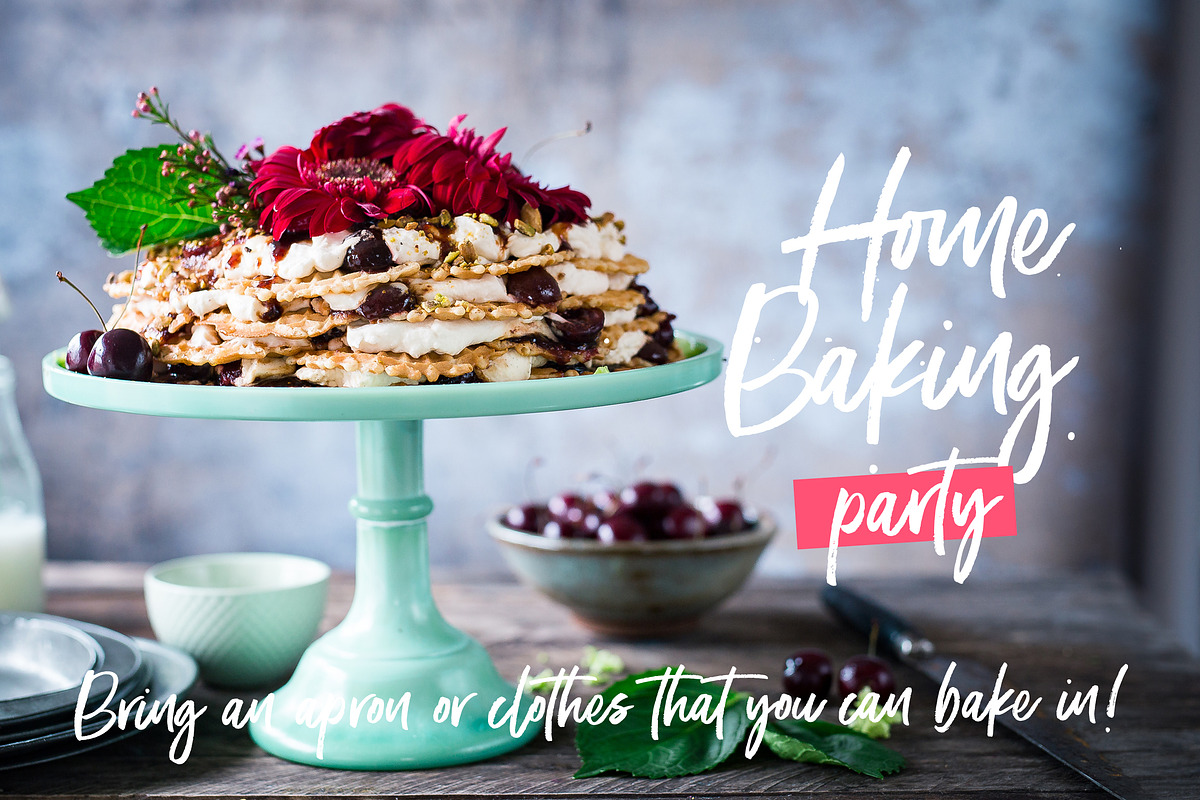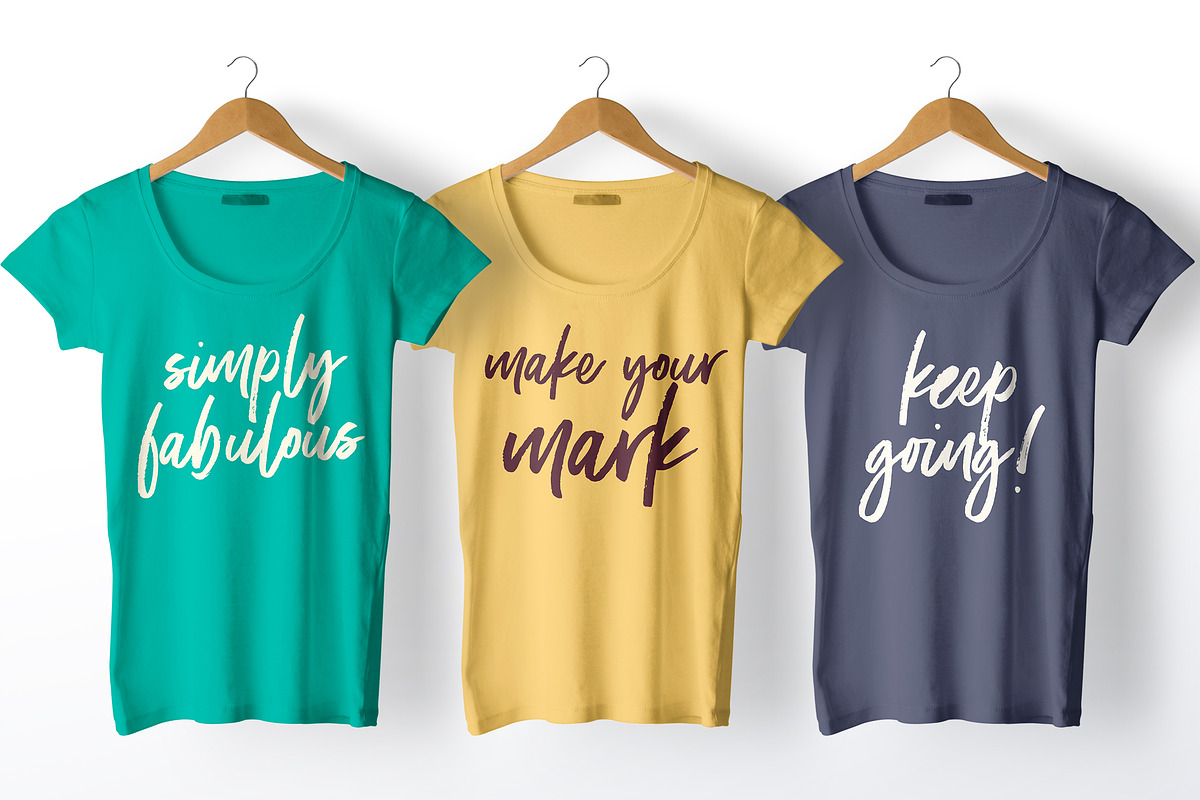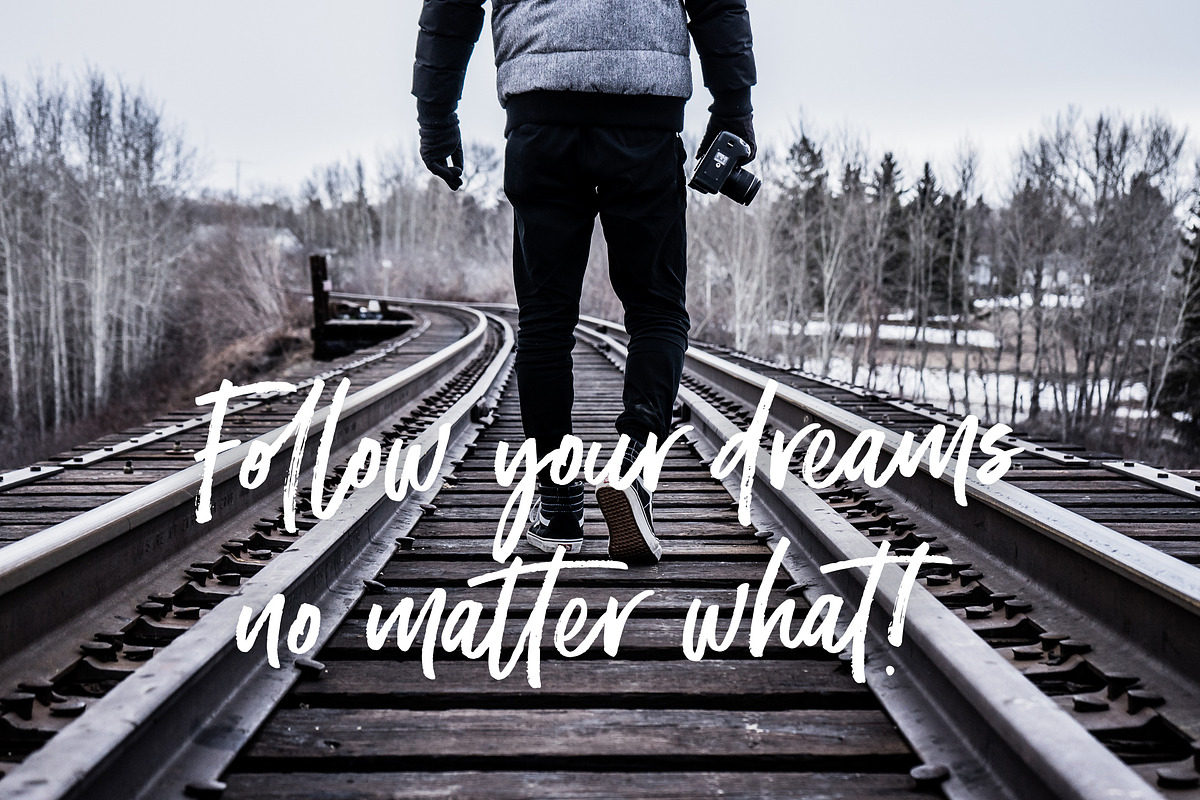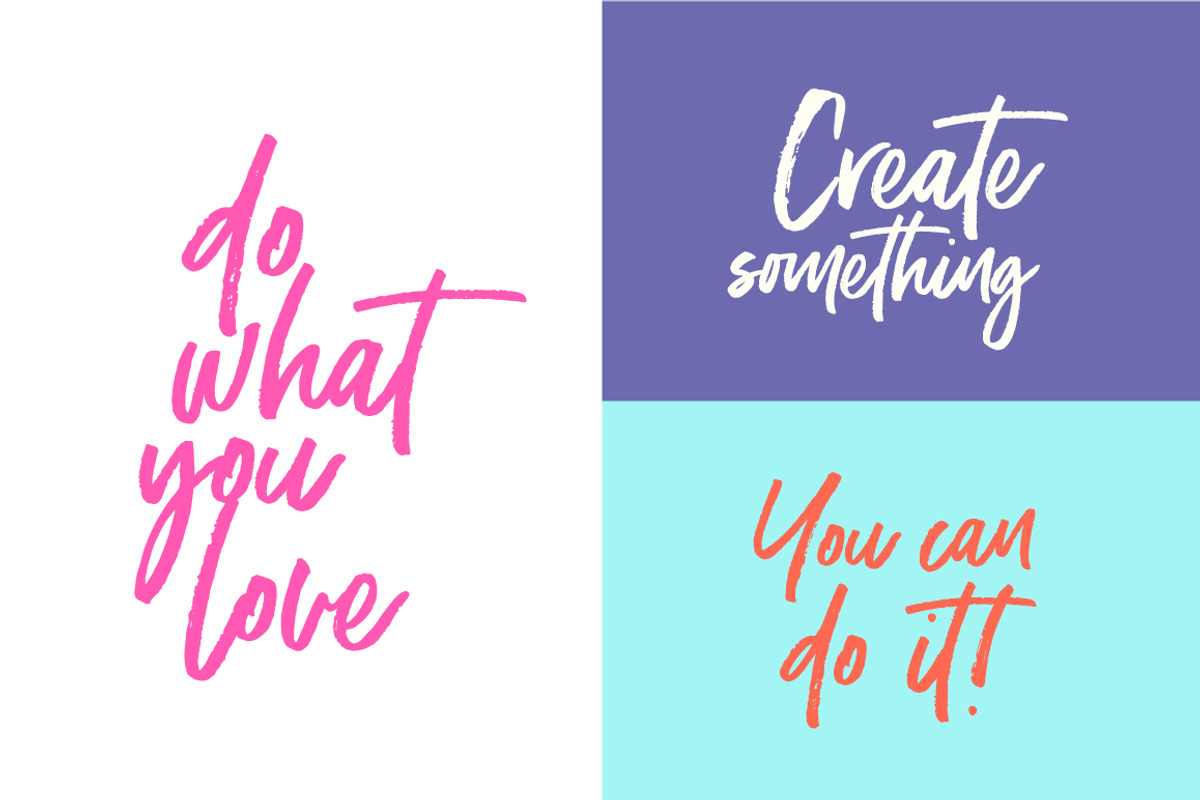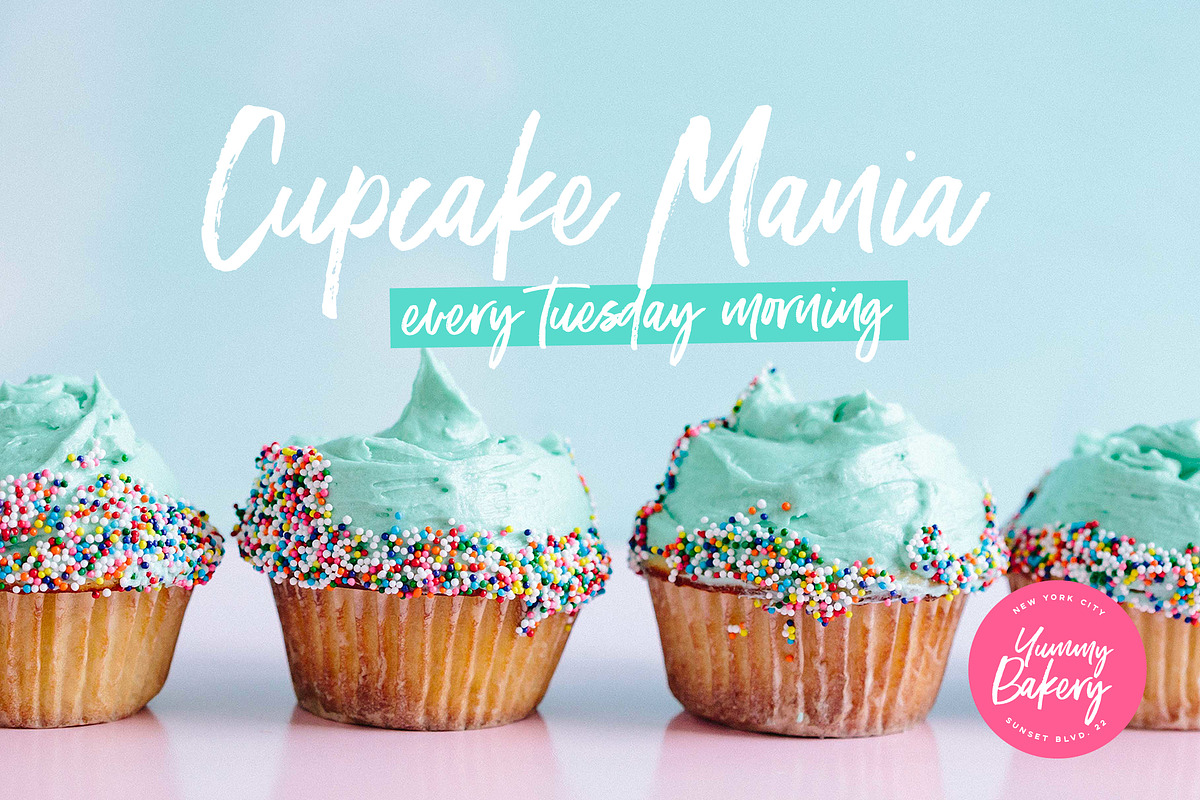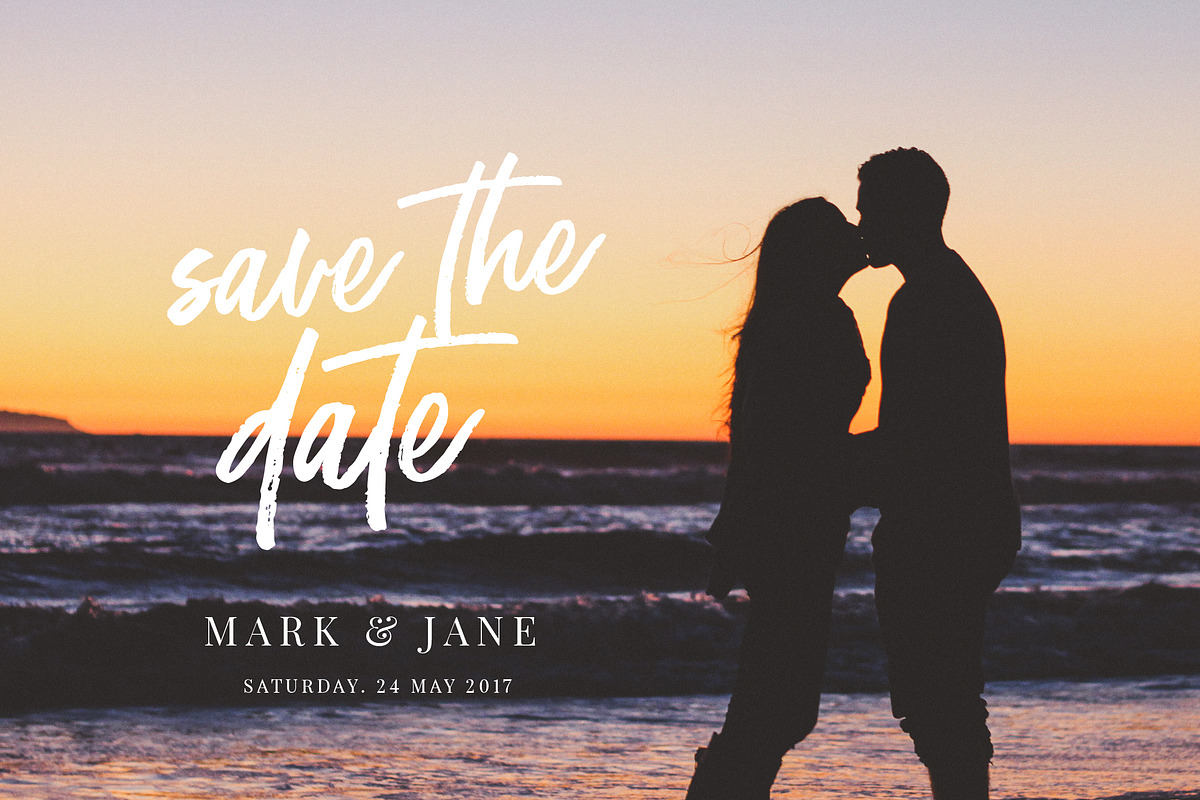
Moonstone Brush Font
Moonstone Brush Font by VladCristea is a font selected for branding, posters, packaging, typography.
- Moonstone comes with upper and lowercase Basic Characters, Numbers, Marks and Punctuation.
- As a feature Moonstone also comes with Ligatures and Swashes to make your text pop.
Why Moonstone Brush Font is worth a look
Moonstone Brush Font by VladCristea fits naturally into Branding, posters, packaging, typography.